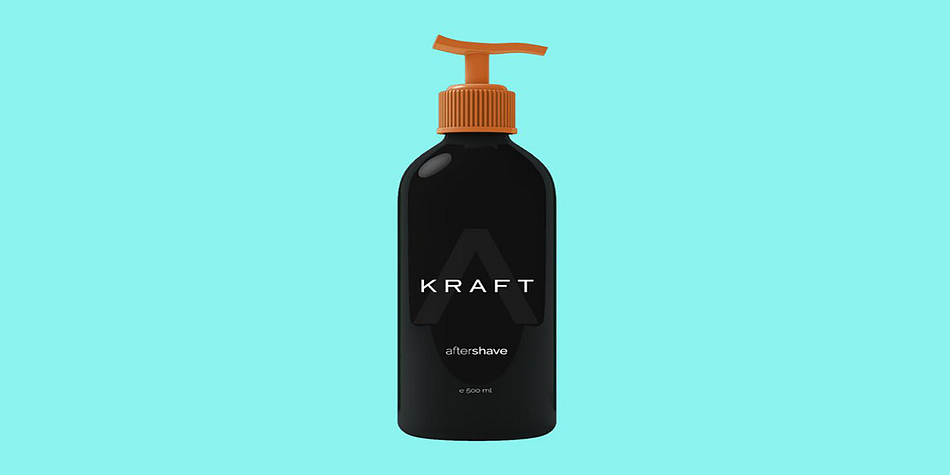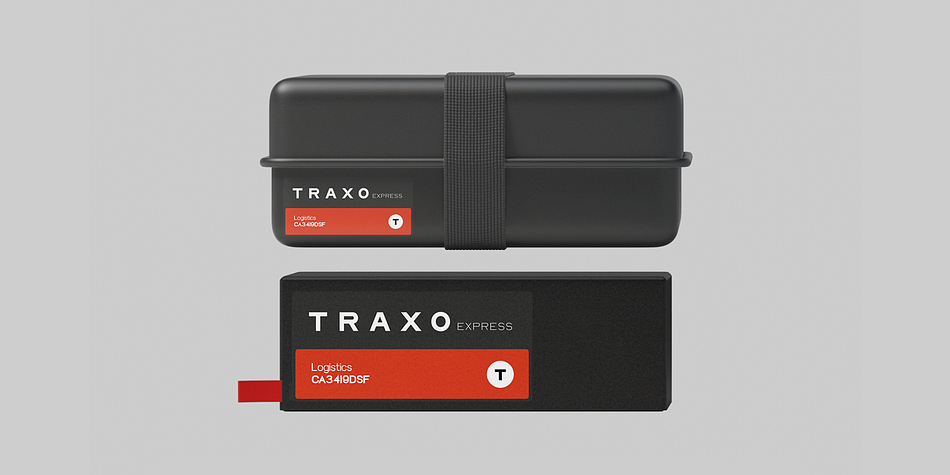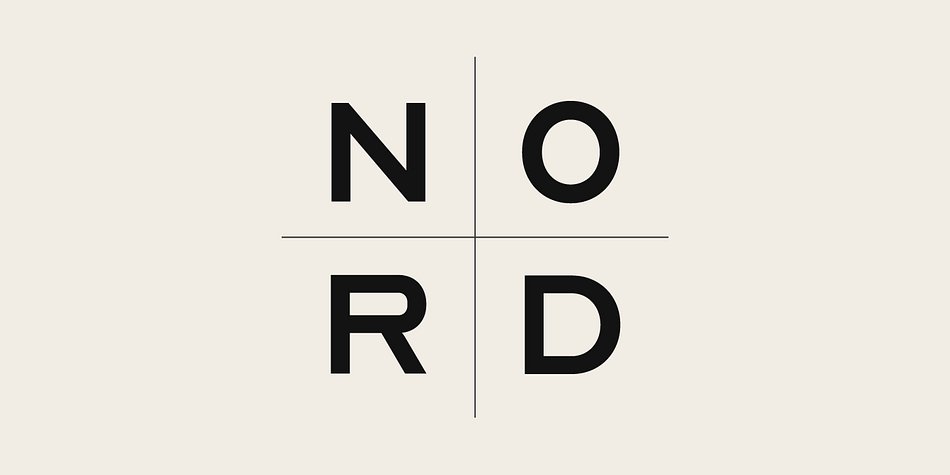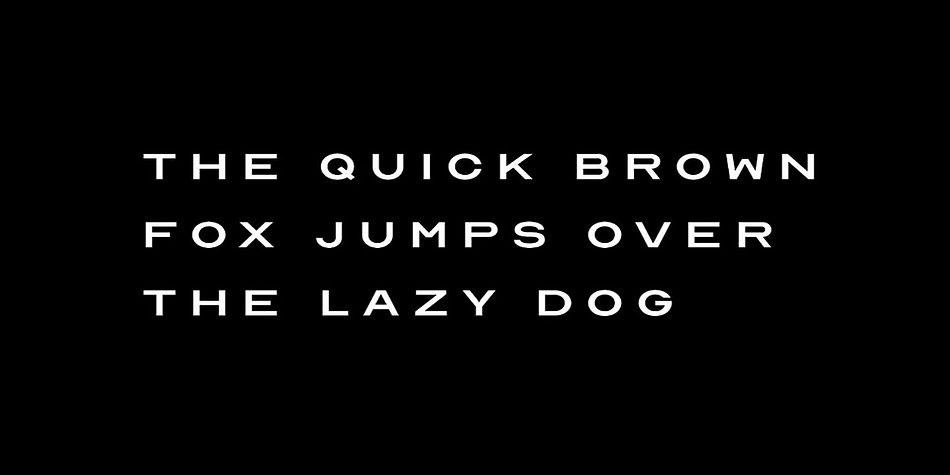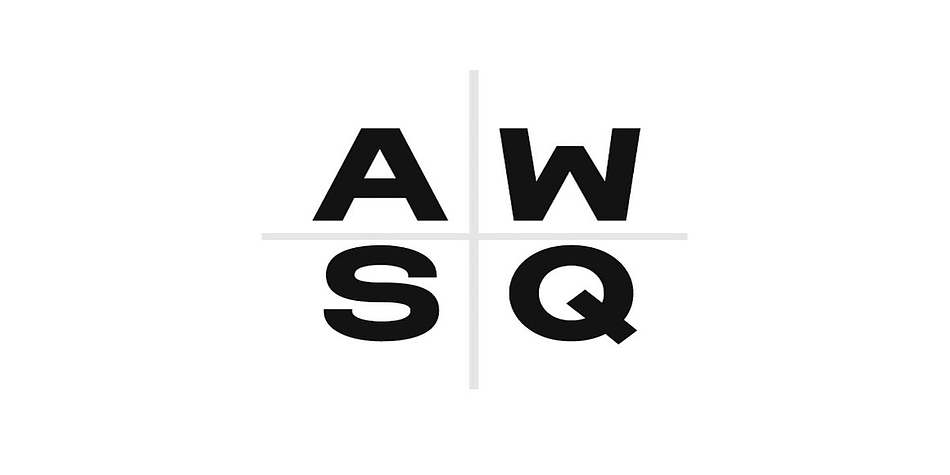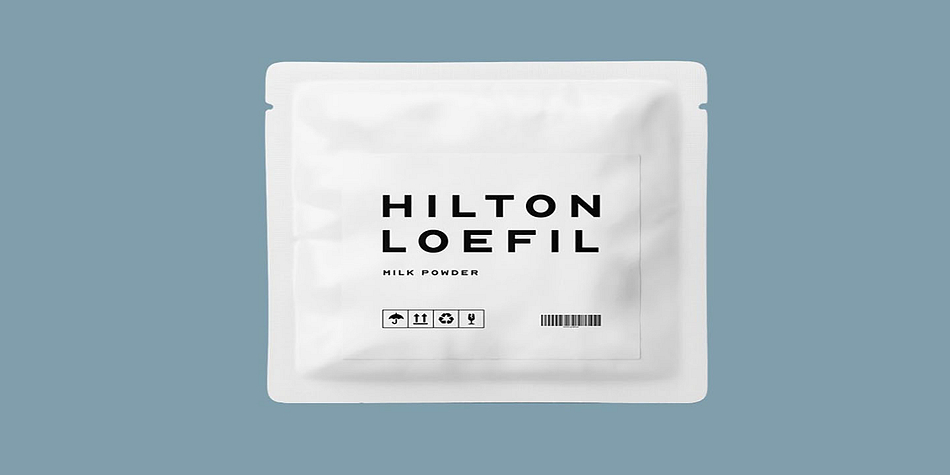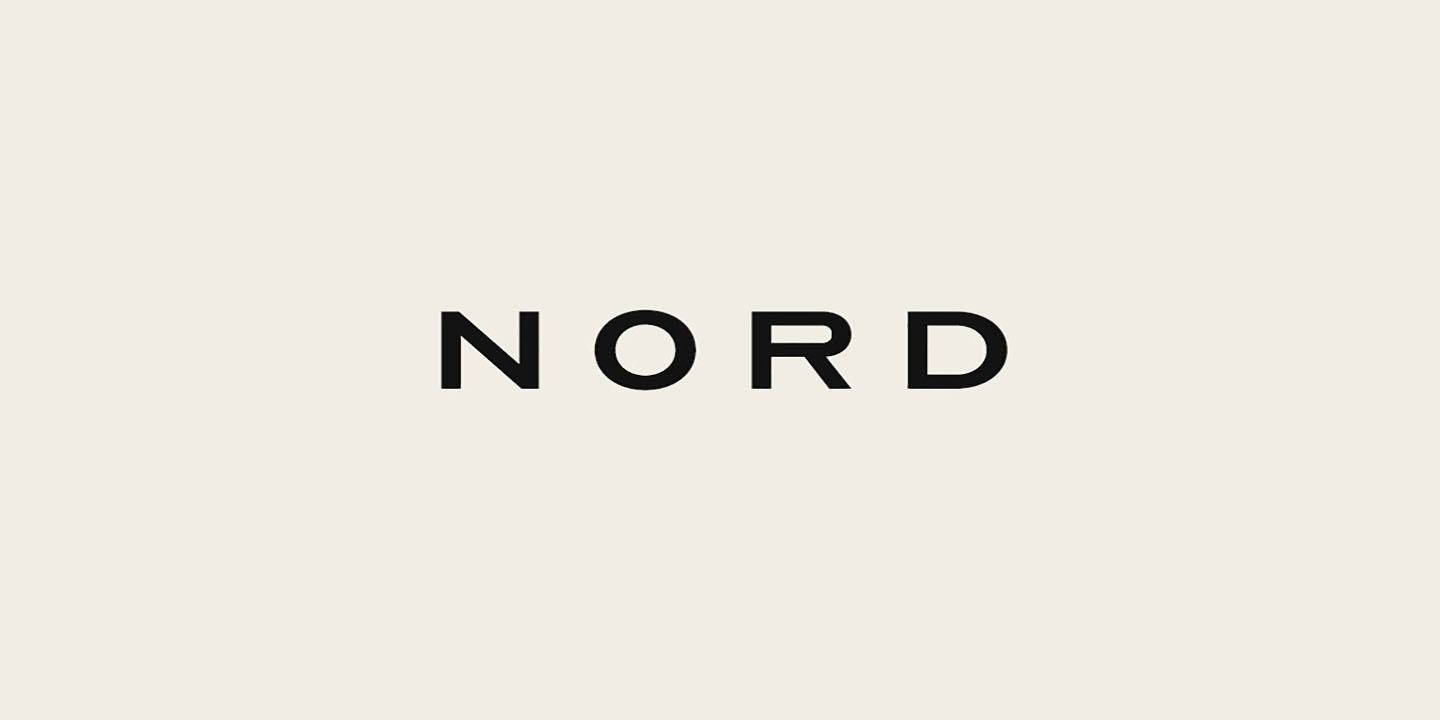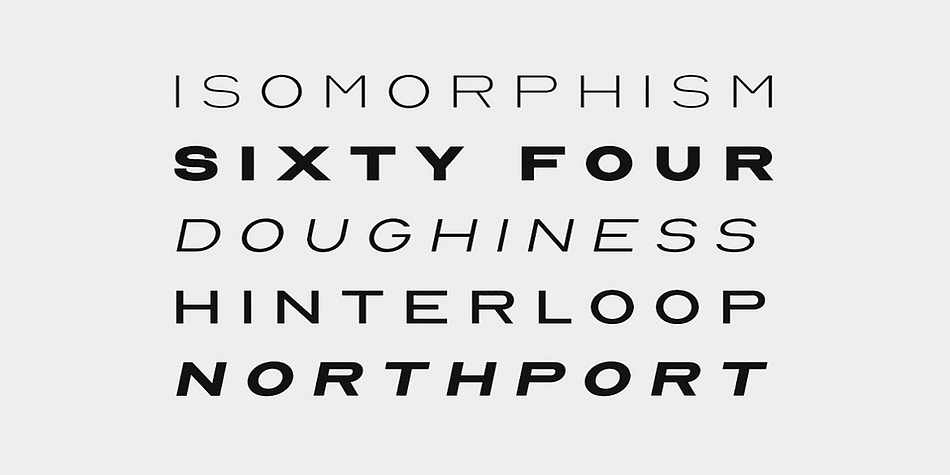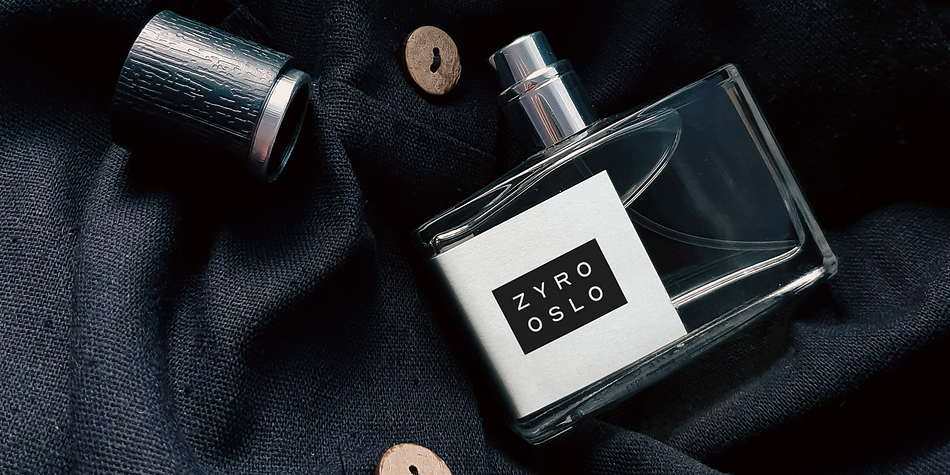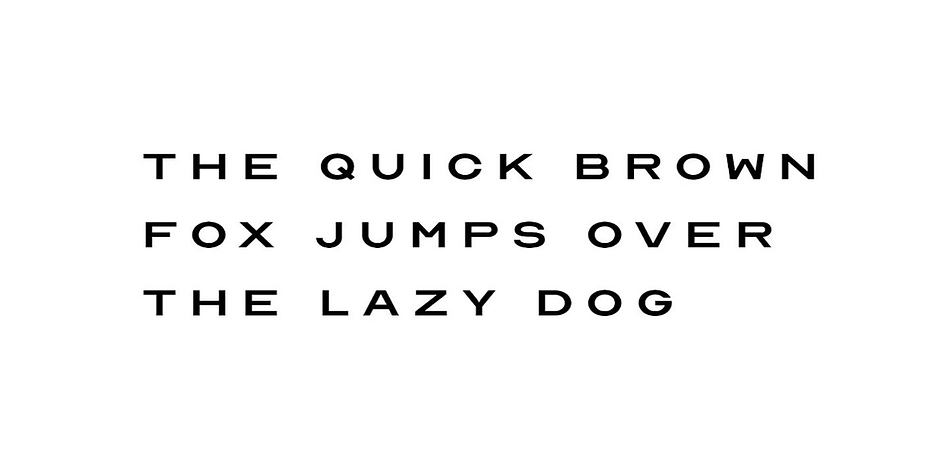
NORD
NORD is a display sans font family. This typeface has fourteen styles and was published by Fontastica.
NORD is a minimal & modern Sans Serif / Display / All-Caps typeface that stands out from crowd. NORD will be best suited for creating logotypes, branding, headlines, corporate identities, marketing materials for web & print as well as any type of minimal designs. Please see the included demo graphics to get an idea about the capability of this typeface when used for branding and marketing material design.
NORD typeface comes with 7 weights: THIN / LIGHT / BOOK / REGULAR / MEDIUM / BOLD / BLACK as well as Italic versions of all 7 weights. Each weight includes extended language support including Western European & Central European sets. A total of 275 glyphs are included (updated as version v2.0).